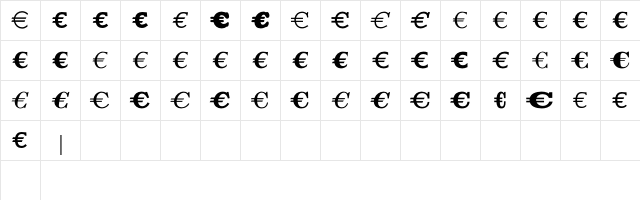
Complete EuroSerifEF Three glyph index. Displaying only characters natively supported by EuroSerifEF Three font.
EuroSerifEF carries the refined structure of traditional serif typography, with bracketed terminals and considered proportions that communicate credibility and craft.